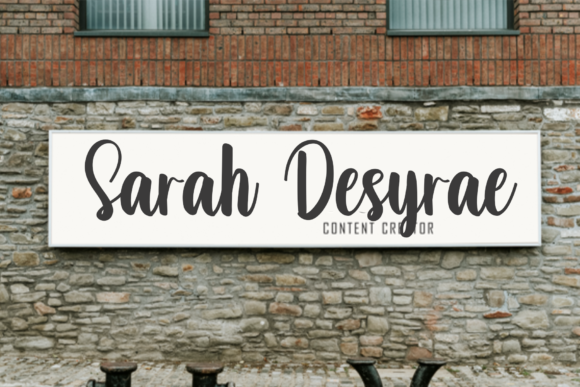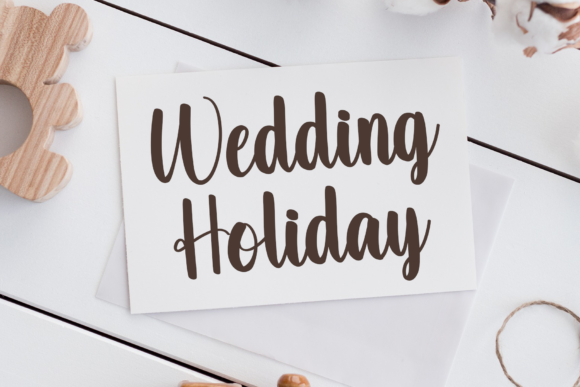
Article Font
db-ku.com - Script & Handwritten -- Article is a sweet, whimsical, flowing and thin script font. Featuring characters that dance along the baseline, this font will add a luxury spark to any design project that you wish to create!